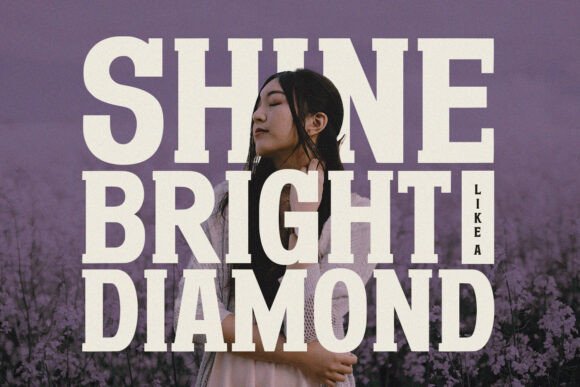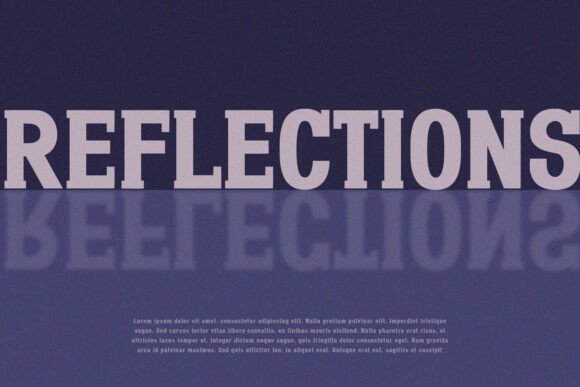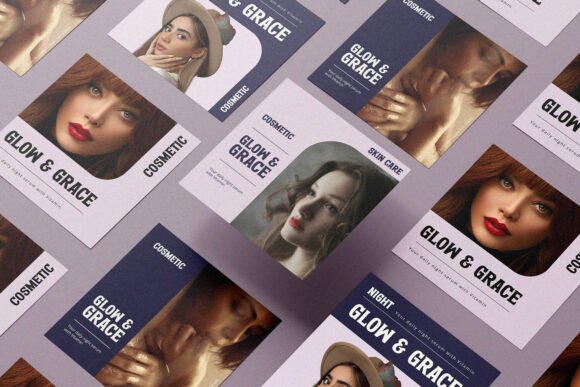
Introduction to Moonlit Font
Moonlit is bold serif font with elegant and modern feels.
It will be perfectly used for Branding, Logo Design, Lettering, Logotype, Clothing, Poster, magazine, packaging, posters, shopping bags, t-shirts, book covers, photography, special events and other design project .
Key Features of Moonlit Font
Why Choose Moonlit Font?
Moonlit Font offers exceptional quality and versatility, making it a valuable addition to your design toolkit. Whether you’re creating for personal projects or commercial use, Moonlit Font delivers professional results.